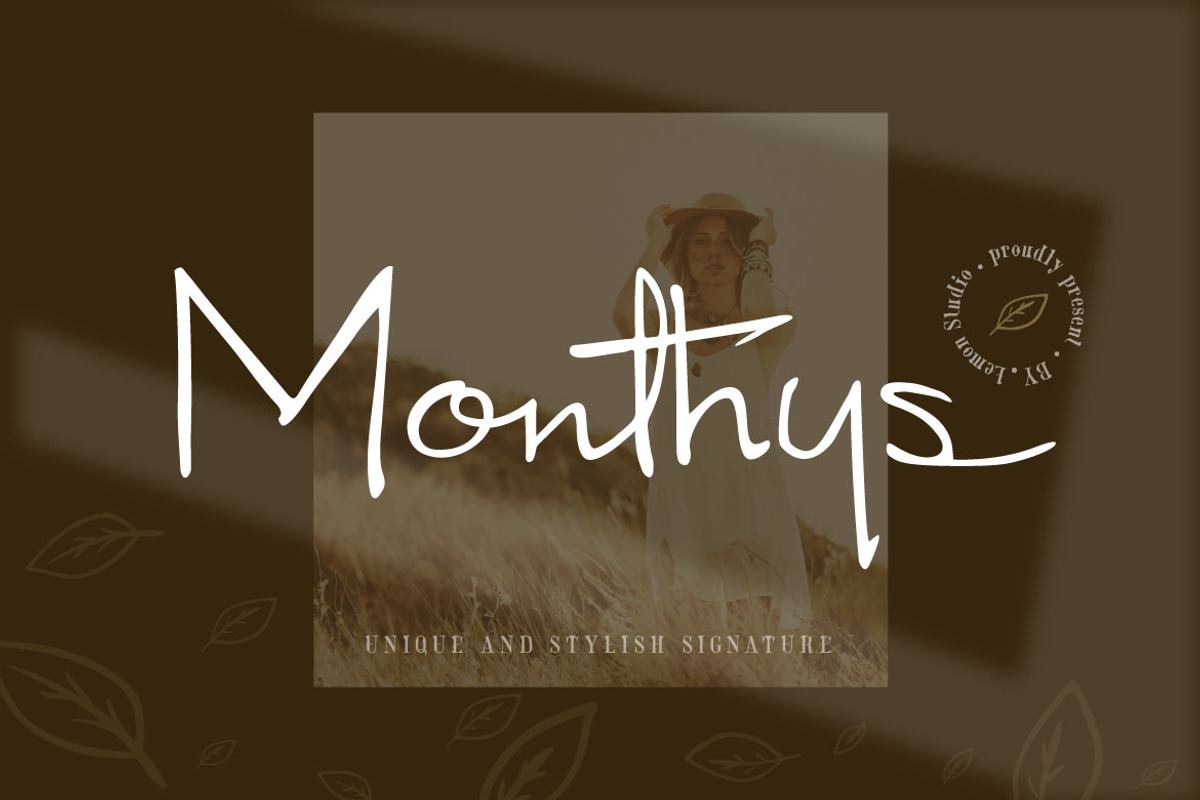
Please note, to use this font for commercial purposes, you must purchase the full version. Monthys is a sophisticated and elegant signature font that adds a personal, handwritten touch to your designs. With its smooth, flowing curves and stylish letterforms, this font is perfect for creating high-end logos, branding, invitations, and personal projects. Whether you're designing a chic brand identity or a beautiful wedding invitation, Monthys brings a unique, custom look to your work. Test it out and enjoy free download access for personal use. Experience the refined beauty of Monthys - Signature Font Free Download before purchasing the commercial license. Add an elegant, handwritten feel to your designs with Monthys.